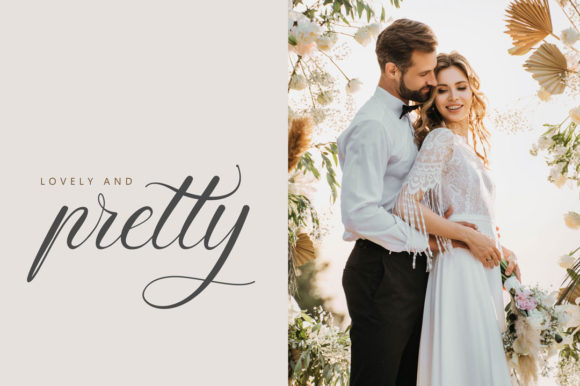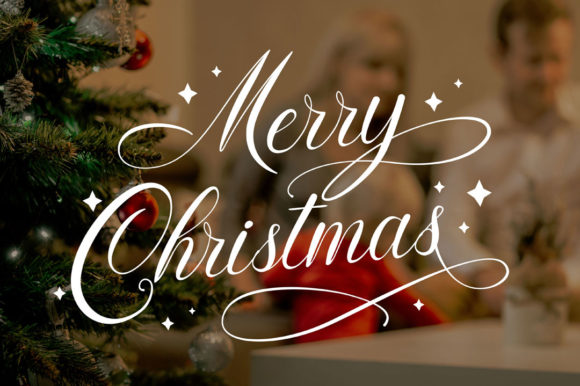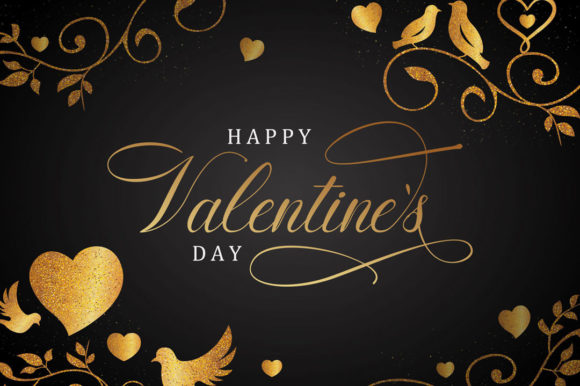
Introduction to Cordless Font
Have you ever found yourself in the midst of a creative project, struggling to find the perfect font to convey the elegance and sophistication you envision? You’ve scrolled through countless options, only to settle for something that’s “close enough.” But what if I told you that there’s a font that can elevate your design game and make your creative process a breeze?
Enter the Cordless Font, a stunning handwritten font that exudes simplicity, flow, and delicacy. With its PUA encoding, you’ll have access to a wide range of glyphs and swashes, allowing you to customize your design to perfection. Whether you’re creating wedding invitations, business cards, or social media posts, the Cordless Font is the perfect design resource to add a touch of high-quality elegance to your work.
Cordless Font
- Includes a range of glyphs and characters, ideal for various design applications
- Features a modern and sleek design, suitable for a variety of creative projects
Honest Review: Cordless Font
As a designer, I’m always on the lookout for high-quality design resources to elevate my creative projects. Recently, I came across the Cordless Font, and I must say it’s a gem.
- ✨ Clean and minimalist design aesthetic that’s perfect for modern branding and design projects.
- ✨ Smooth lines and a transparent background make it easy to layer and combine with other design elements.
- ⚠️ Limited font styles and weights, which might not be suitable for complex design projects.
- ⚠️ May not be ideal for use in small text sizes due to its minimalist design.
Overall, I’m impressed with the Cordless Font’s simplicity and versatility. It’s a great addition to any designer’s toolkit, especially for creative projects that require a clean and modern look. If you’re looking for a high-quality design resource, I’d definitely recommend giving it a try.
Cordless Font is a high-quality, versatile font that can elevate your creative project with its unique design and transparent background. This font is perfect for designers and artists who want to add a touch of elegance to their work.
To get the most out of Cordless Font, use it in creative projects where its unique design and transparent background can shine. Experiment with different font sizes, colors, and combinations to achieve the desired effect.
Common Use Cases for Cordless Font
Cordless Font is perfect for designing:
- Invitations and event materials
- Infographics and data visualizations
- Book covers and book titles